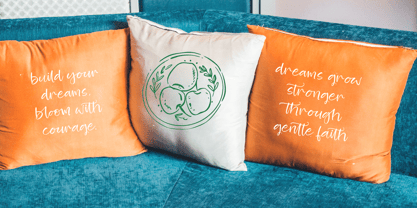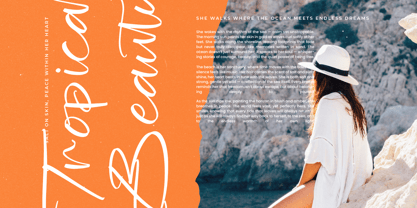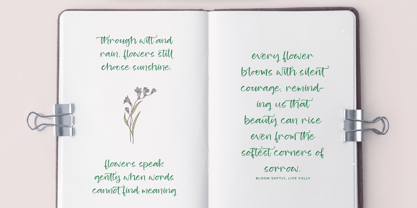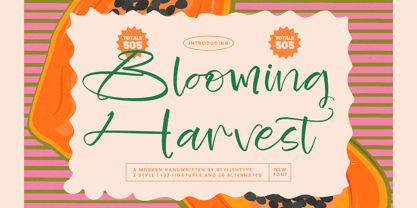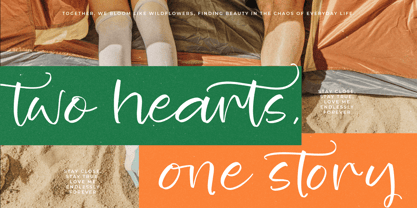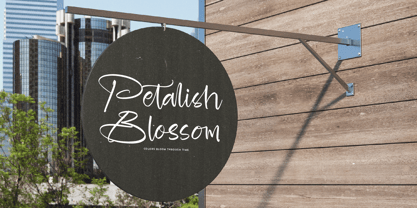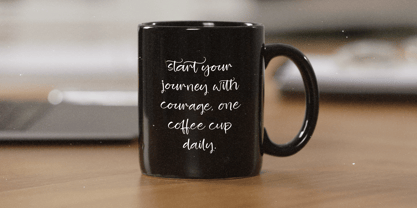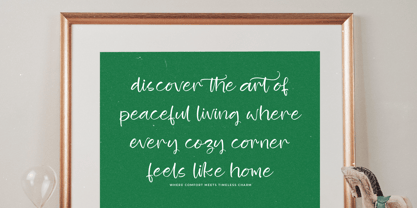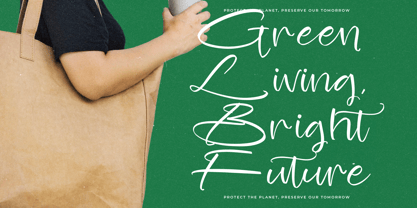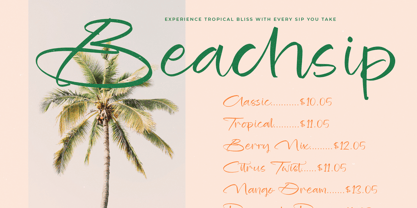
Blooming Harvest
by Stylishtype Studio
The Blooming Harvest Font Family was designed by Heru Utama Putra and published by Stylishtype Studio. Blooming Harvest contains 2 styles and family package options.
Blooming Harvest - Modern Handwritten Font ,Blooming Harvest is a modern handwritten script font with a natural and elegant flow. It captures the charm of hand-drawn lettering with a fresh, contemporary touch. Perfect for invitations, branding, product packaging, and social media designs, Blooming Harvest adds warmth, creativity, and sophistication to any project with its organic, blooming rhythm.